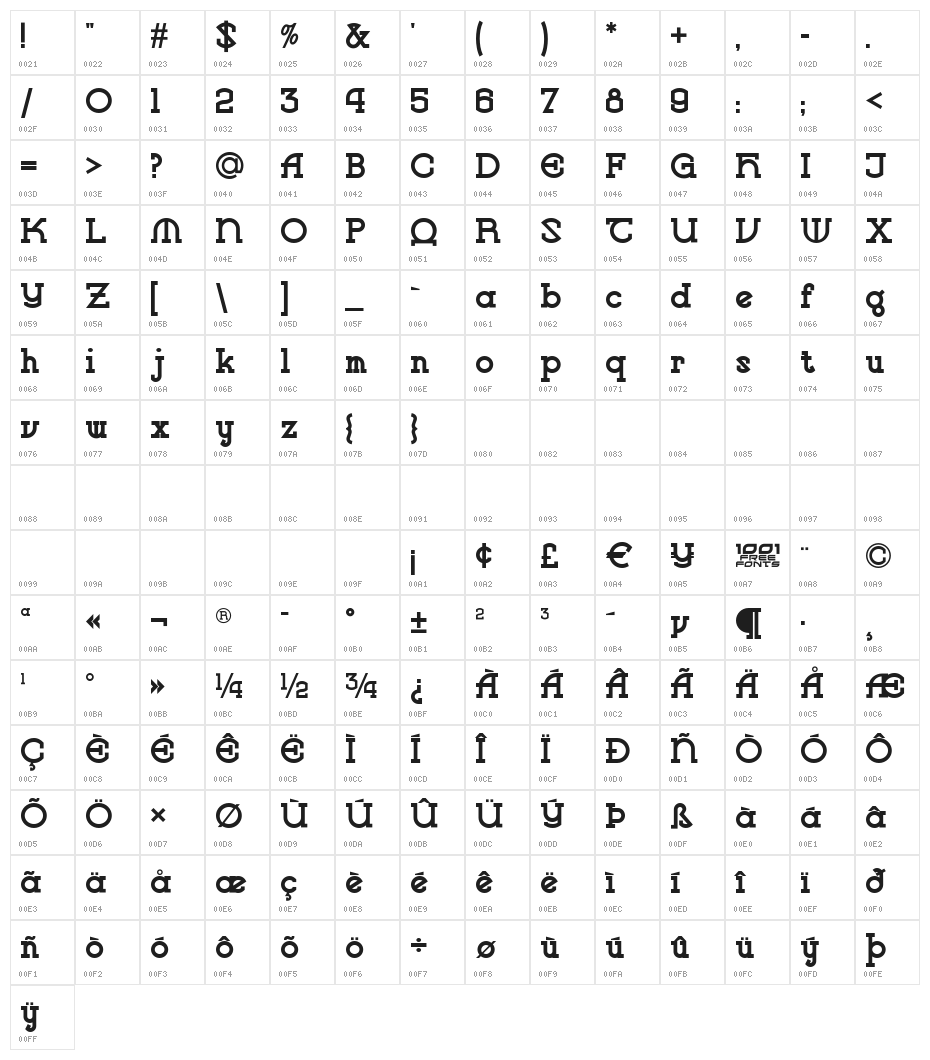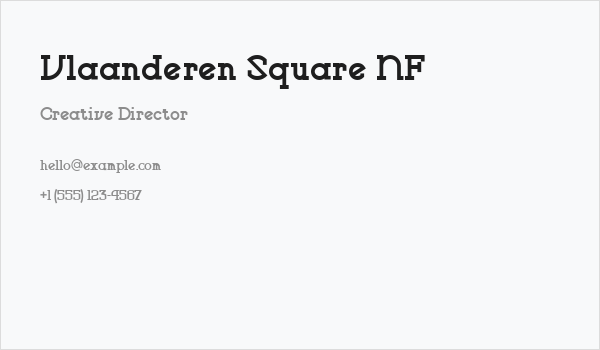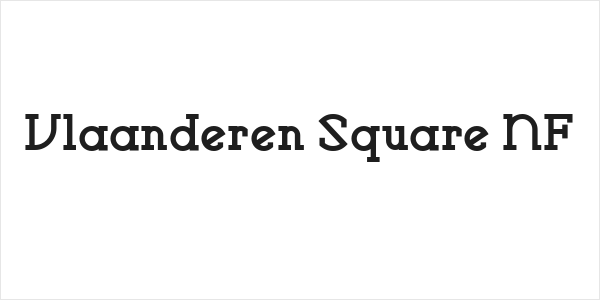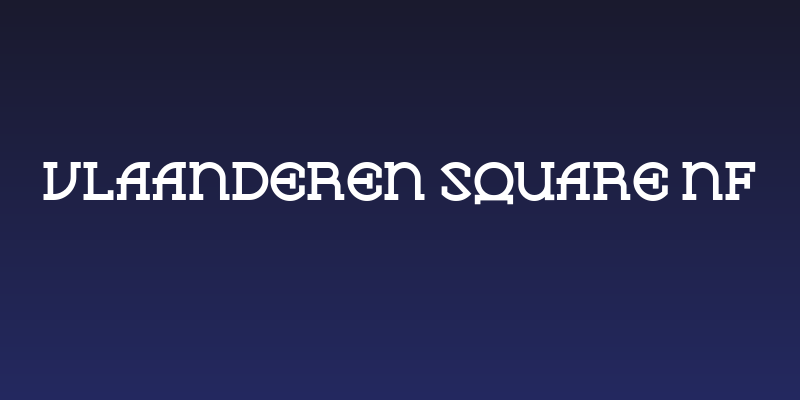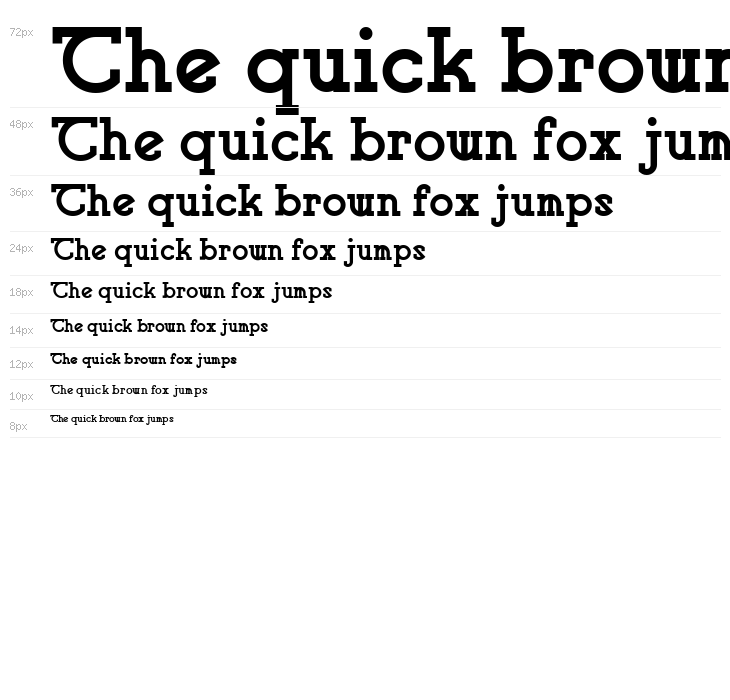
Vlaanderen Square NF Font
Vlaanderen Square NF Description
This font features a bold and robust design with a strong geometric influence. The uppercase letters have a distinctive, blocky appearance with consistent stroke widths, giving them a solid and stable look. The lowercase letters maintain a similar weight and style, ensuring uniformity across text. The numerals are equally bold, with a slightly rounded finish that adds a touch of softness to the overall design. Special characters are well-integrated, maintaining the font's cohesive style. This font's boldness and geometric structure make it suitable for impactful and attention-grabbing designs.
| Proposed Projects | Ideal for posters, headlines, branding, and signage where a strong visual impact is desired. |